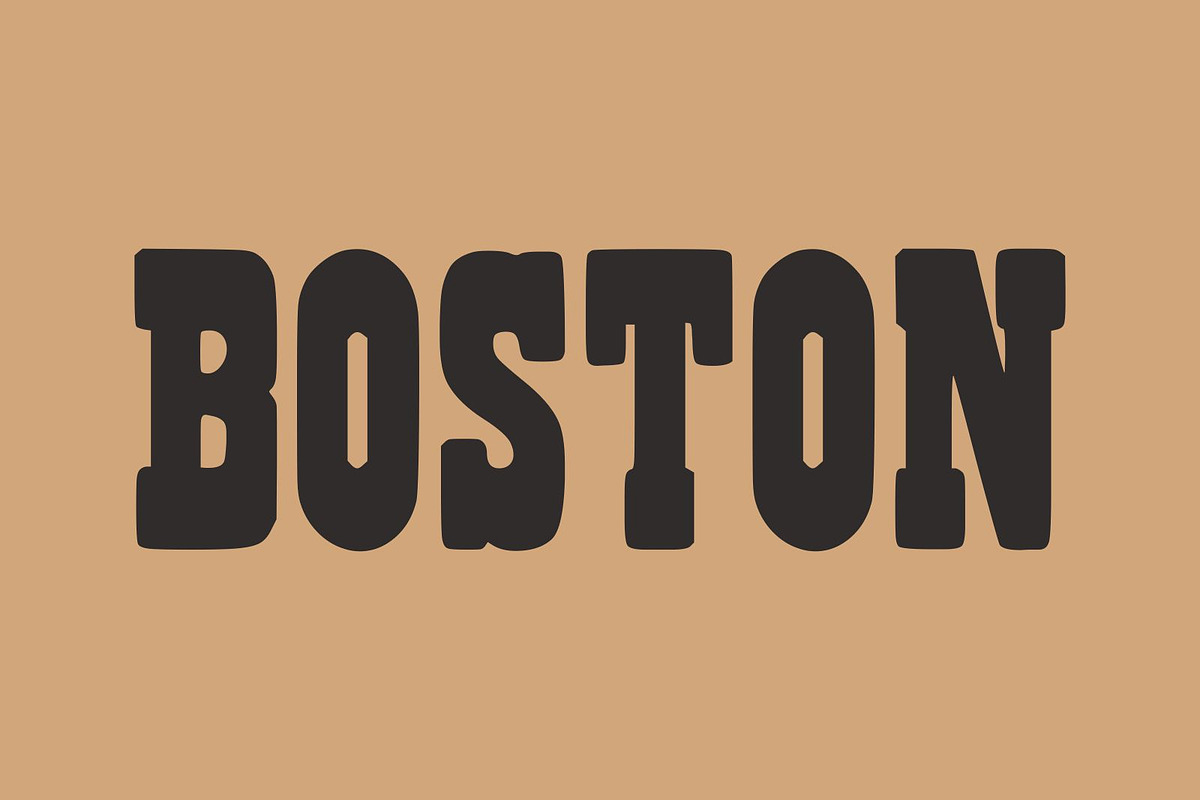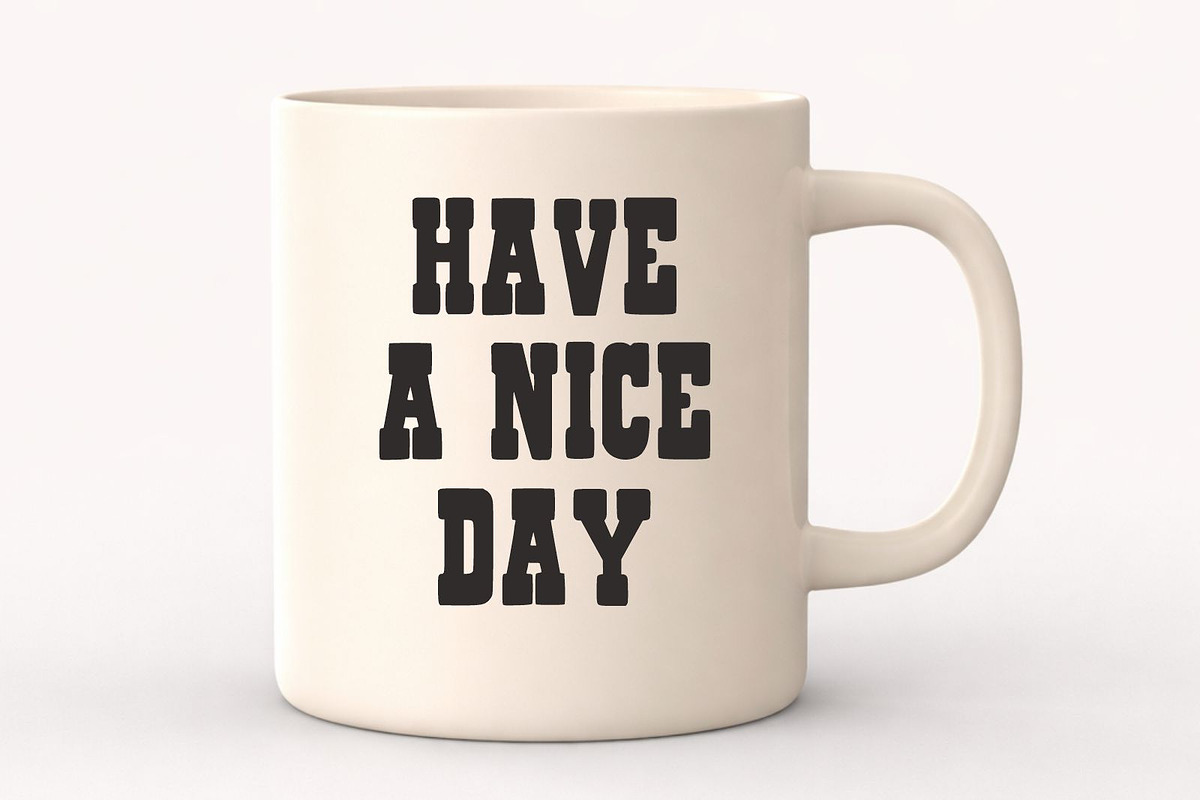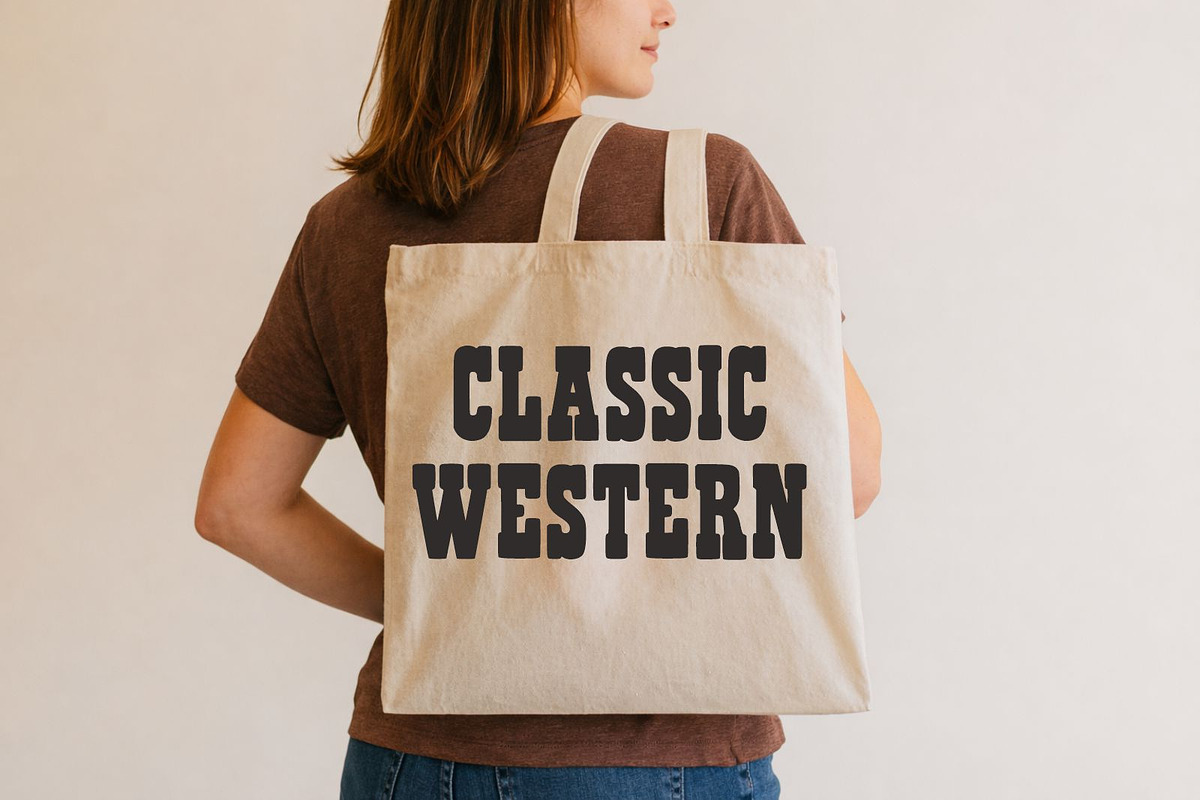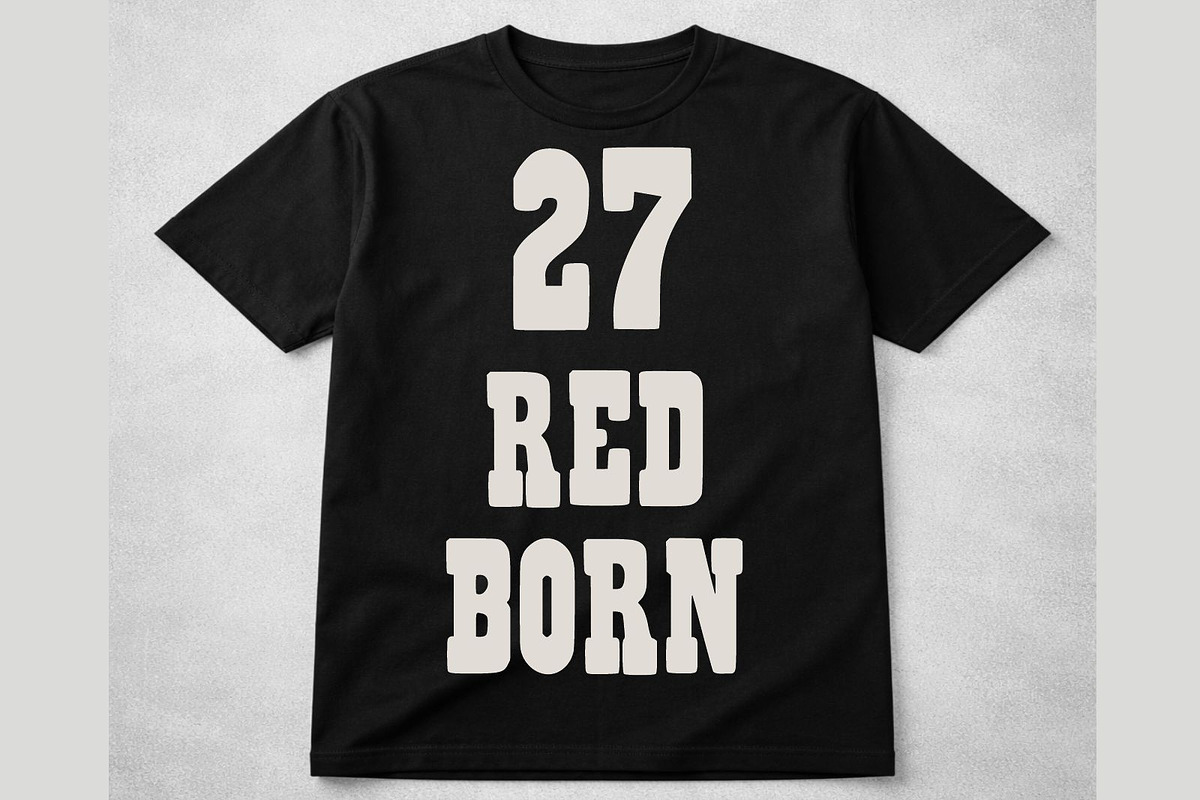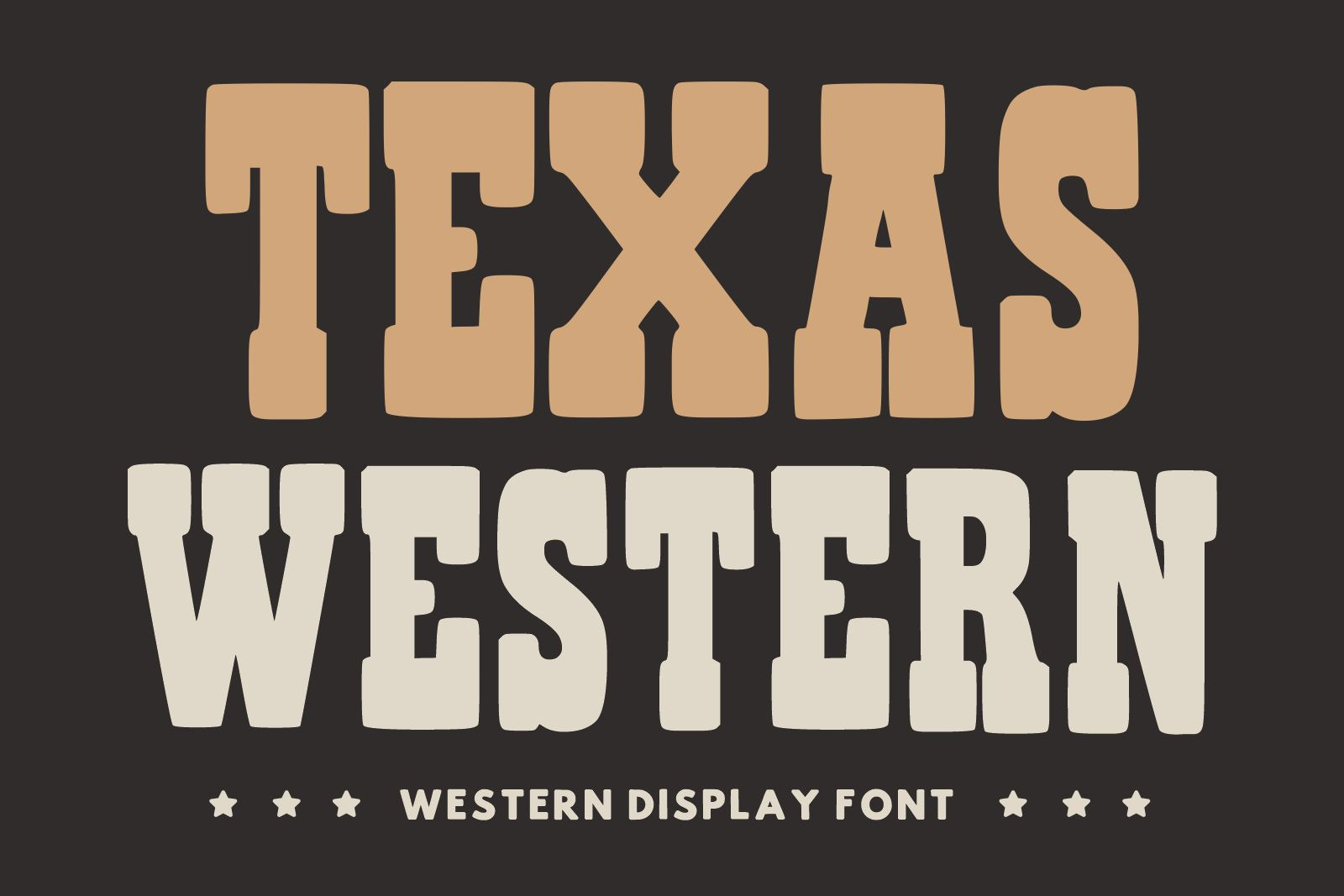
Texas Western – Western Display Font
Texas Western is a bold western display font inspired by classic cowboy typography and vintage saloon lettering. With its strong slab-serif style and retro western character, this font is perfect for posters, logos, branding, t-shirt designs, signage, packaging, labels, social media graphics, and rustic themed projects. Texas Western brings an authentic wild west feel to every design with its powerful and timeless look.